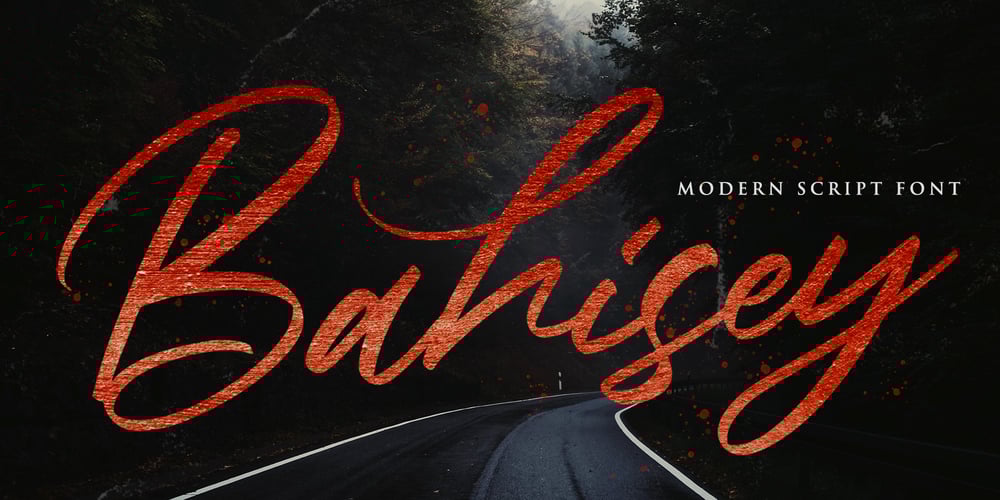
Bahisey
Bahisey font
Bahisey Font Family was designed by Virgiawan Listanto and published by Stringlabs Creative Studio. Bahisey contains 1 styles and family package options. Bahisey is a beautifully crafted modern script font that combines elegance with a fresh, contemporary feel. With its smooth curves and stylish lettering, it’s perfect for adding a sophisticated touch to any project.